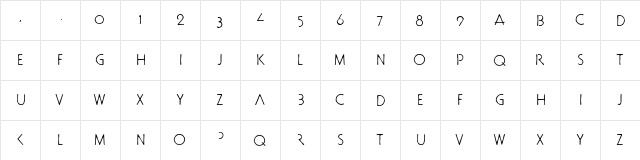
doctorBob Regular
| Designer | J O E B O B graphics |
Design Context for doctorBob Typeface
doctorBob offers clean, dependable letterforms without strong stylistic allegiance, making it a practical choice for designers who need flexibility.